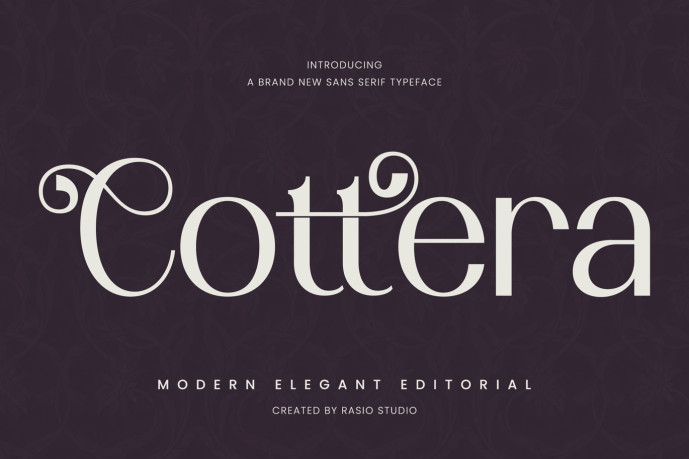
Cottera Modern Editorial Sans Serif Font
Designer: Rasio Studio
Cottera Modern Editorial Sans Serif Font is a sophisticated editorial typeface defined by graceful curves, refined stroke contrast, and distinctive decorative letterforms. It’s elegant serif construction combines classic typographic influence with a contemporary visual approach, creating a balanced personality that feels luxurious, artistic, and expressive. Carefully shaped terminals, flowing details, and slender proportions give the font a polished rhythm, while selected ornamental forms add a memorable character to prominent words and display typography. Designed to create an elevated visual presence, Cottera works especially well in compositions where typography becomes a central design element. The font includes uppercase and lowercase characters, numerals, and punctuation, providing essential versatility for professional creative projects.
Cottera is well suited to fashion labels, beauty and skincare identities, boutique businesses, jewelry collections, fragrance packaging, wedding stationery, magazine covers, art publications, lookbooks, creative portfolios, photography projects, and upscale hospitality concepts. It’s slender proportions and expressive ornamental details also complement product titles, campaign headlines, invitation suites, cosmetic labels, social media visuals, posters, signage, and curated print materials where typography needs to feel graceful and visually distinctive. Designers can use Cottera to establish an editorial atmosphere, introduce a romantic touch, or build an elevated identity that combines contemporary styling with classic typographic influence across both digital and printed applications.